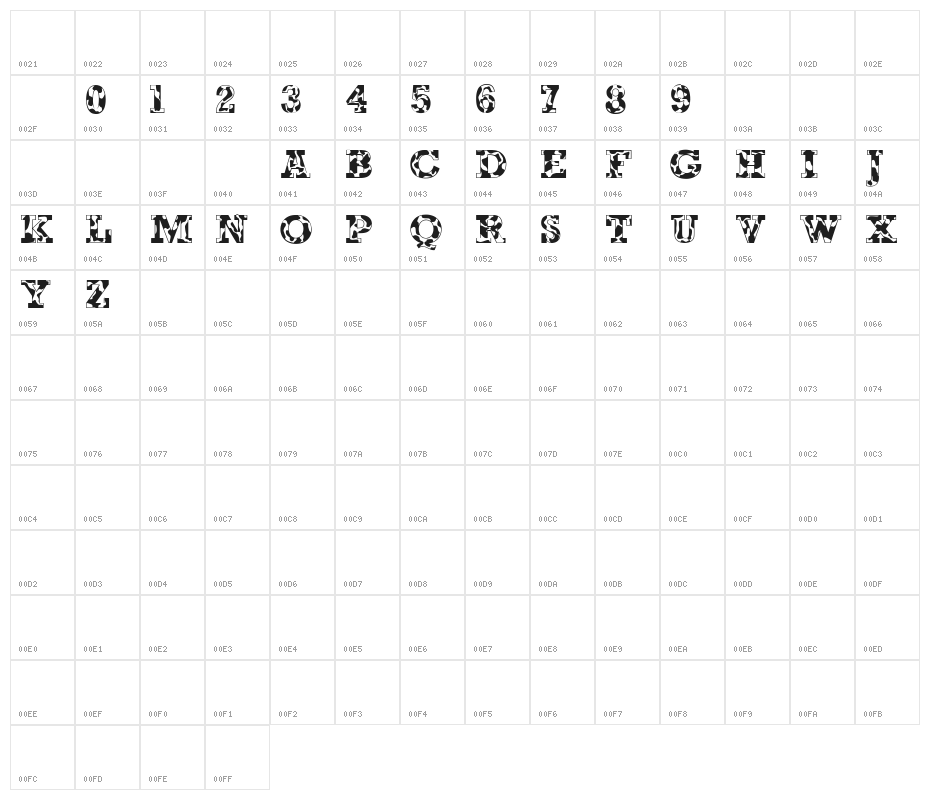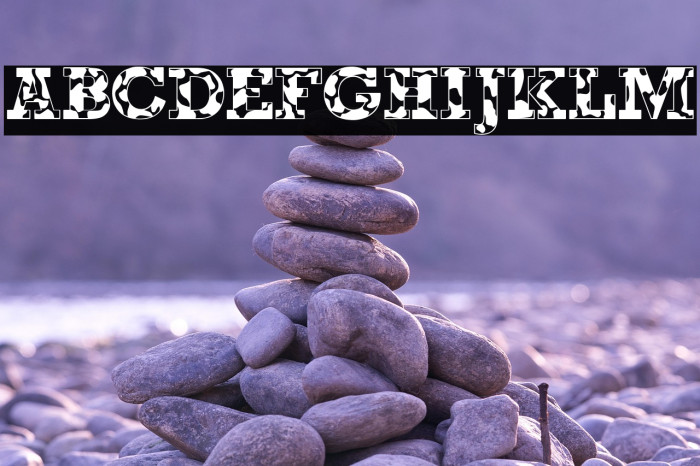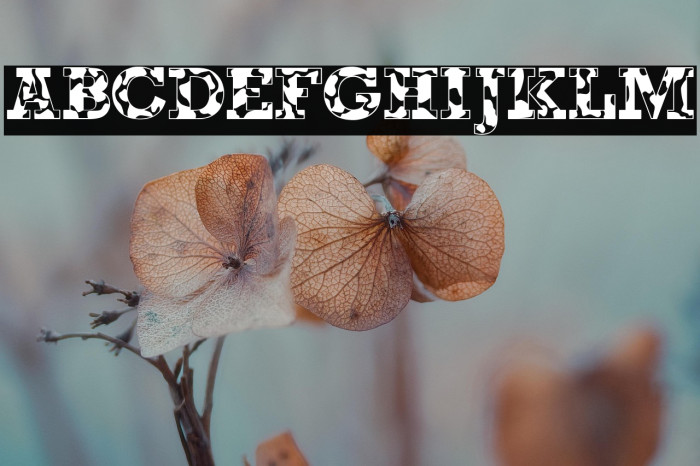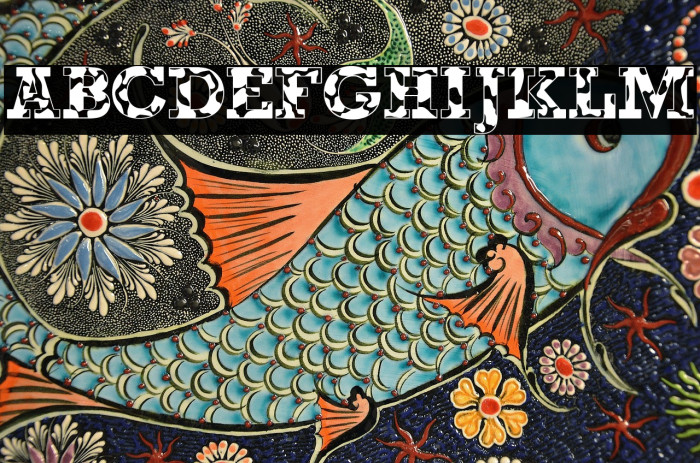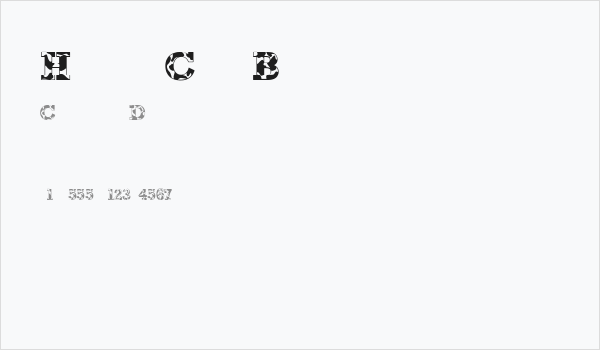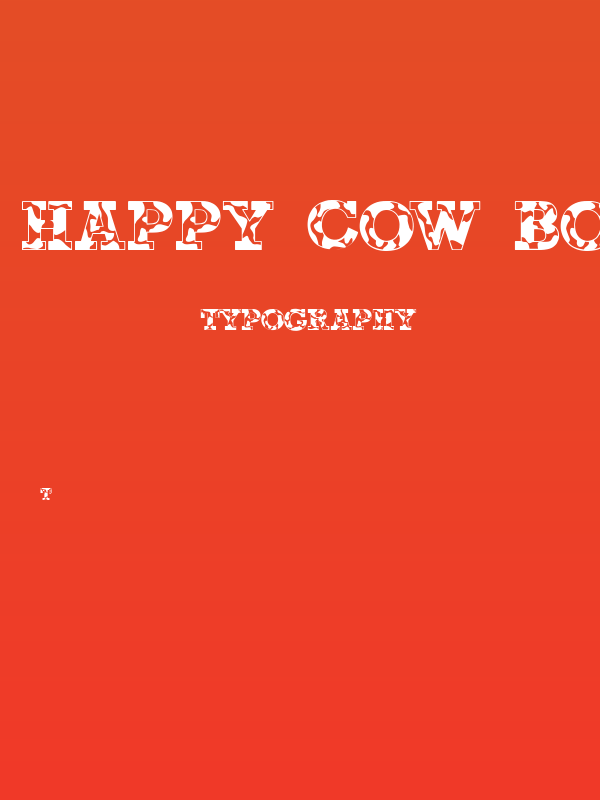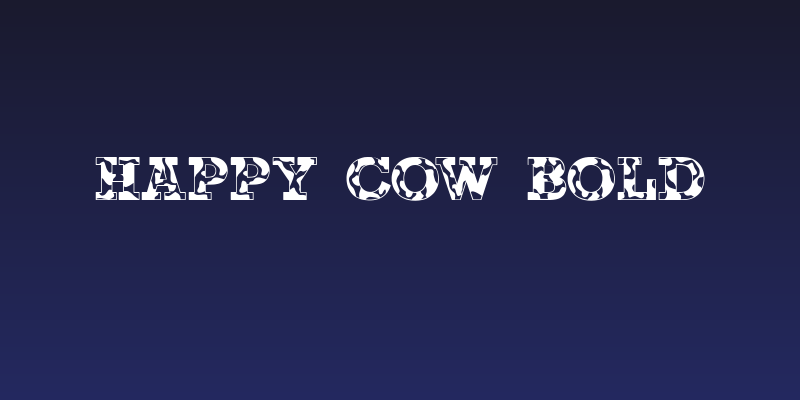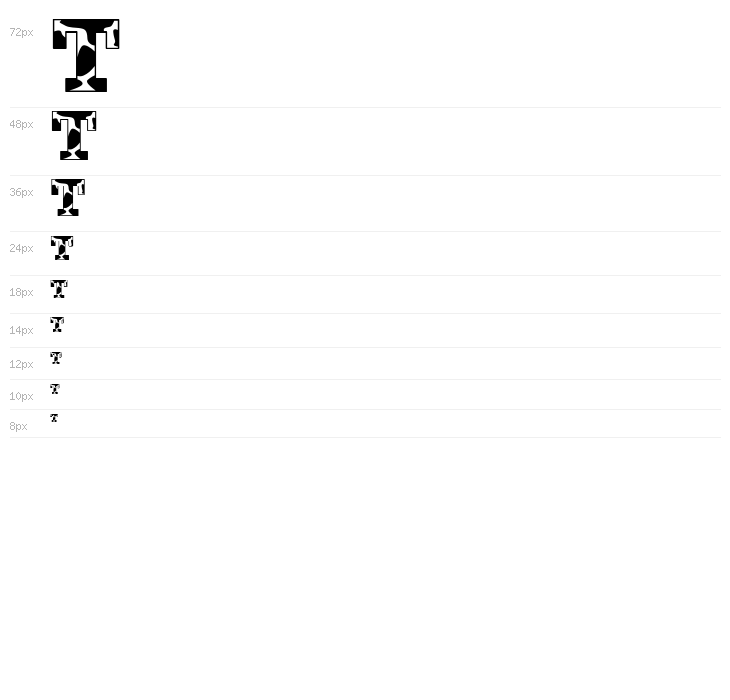
Happy Cow Bold Font
Happy Cow Bold Description
This playful and bold font features a distinctive cow pattern within each character, creating a fun and eye-catching design. The uppercase letters and numbers are filled with black and white patches reminiscent of a cow's hide, giving it a unique and whimsical appearance. The font's bold weight and decorative style make it stand out, perfect for projects that require a touch of humor or a farm-themed aesthetic. Its strong presence and high contrast between the black and white elements ensure readability while maintaining its playful charm.
| Proposed Projects | Ideal for children's books, farm-themed event posters, playful branding, or any project needing a whimsical touch. |